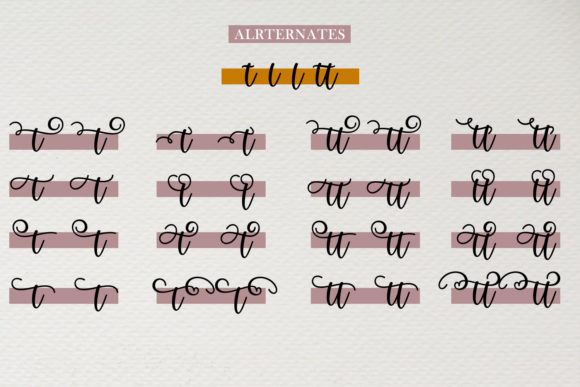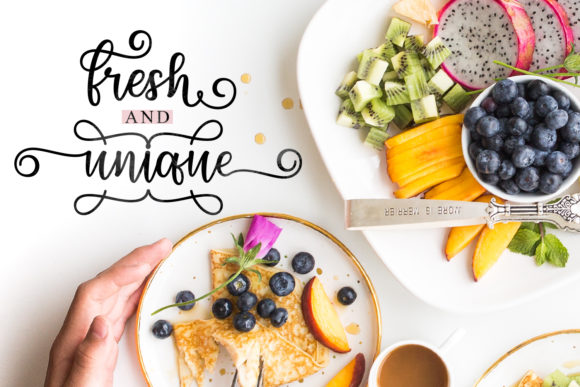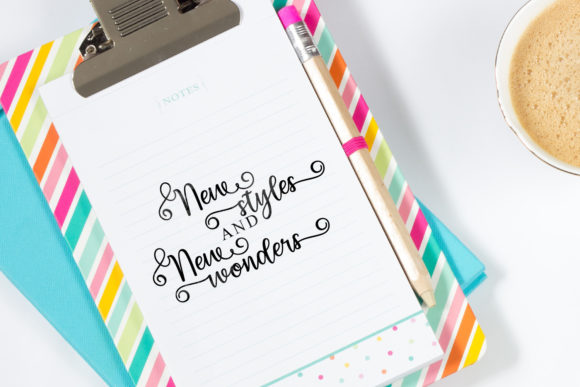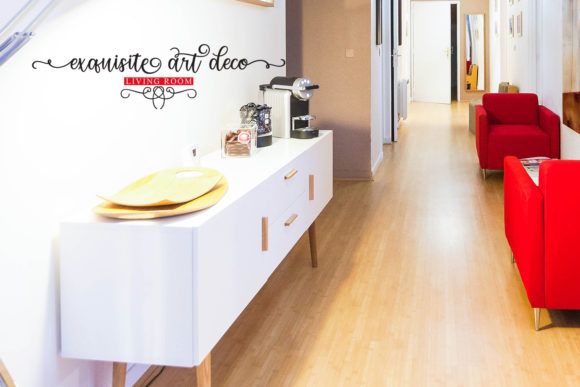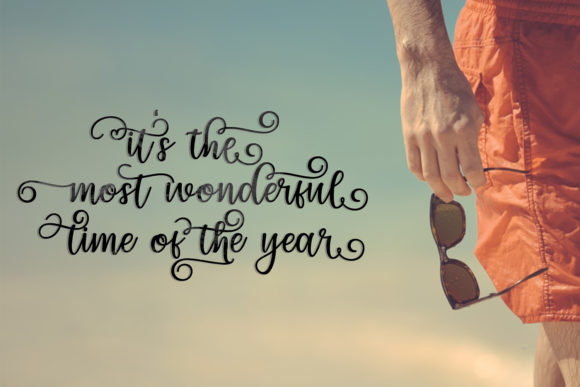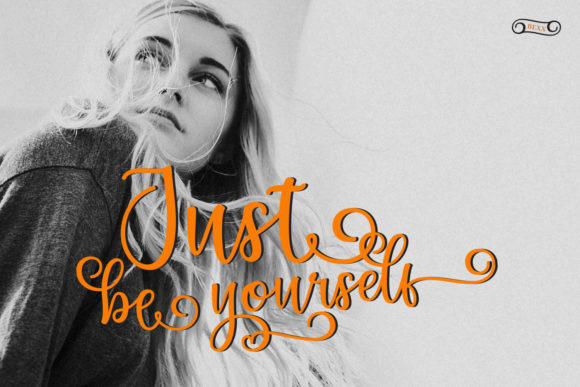
Introduction to Migdale Font
Have you ever stumbled upon the perfect font that makes your design project feel like a masterpiece? For designers, finding that one special font can be a game-changer. It’s like discovering a hidden treasure that elevates your entire creative project to the next level.
One such treasure is the Migdale Font – a playful script font that’s sure to add a touch of whimsy to any design. With its swirly characters and varying baseline, Migdale Font is a high-quality design resource that’s perfect for adding a personal touch to your projects.
Whether you’re working on a creative project that requires a free download or simply looking for a unique design element, the Migdale Font is an excellent choice. Its transparent background and beautiful flourishes make it an ideal addition to any design. In this article, we’ll delve into the world of Migdale Font and explore why it’s a valuable resource for designers like you.
Key Features of Migdale Font
- High-quality design resource ideal for creative projects, including logos, branding, and marketing materials.
- Features a unique, elegant design style that can add a touch of sophistication to any project.
Honest Review: Migdale Font
I recently had the chance to work with the Migdale Font, and I must say it’s been a great addition to my design resource library. This high-quality font is perfect for any creative project that requires a unique touch.
- Unique and creative design that sets it apart from other fonts
One thing to note is that the Migdale Font may not be suitable for projects that require a more traditional or formal font style. Additionally, some users may find the font’s uniqueness to be a drawback if they’re looking for something more neutral.
Overall, I’m impressed with the Migdale Font and would definitely recommend it to designers looking for a high-quality, creative font for their next project.
Migdale Font
The Migdale Font is a high-quality design resource perfect for creative projects. Its unique style and versatility make it an ideal choice for designers looking to add a touch of elegance to their work.
Using Migdale Font in Popular Design Tools
Tips for Getting the Most Out of Migdale Font
Experiment with different font sizes and styles to achieve the desired effect. Also, pair the Migdale Font with other high-quality design resources to create a cohesive look.
The Migdale Font is perfect for:
- Creating invitations and event graphics
- Designing logos and branding materials
- Adding a touch of elegance to presentations and reports
Alternatives to Migdale Font
Alex Brush is a high-quality, elegant script font ideal for creative projects that require a touch of sophistication. It’s perfect for designing wedding invitations, branding materials, or any other project where a beautiful, handwritten feel is desired. With its transparent background, Alex Brush is a versatile design resource that can be used in various contexts. When to use: weddings, branding, invitations. Comparison to Migdale Font: While Migdale Font has a more modern and edgy feel, Alex Brush is more traditional and elegant.
Carolyna Pro is a modern, high-quality sans-serif font designed for creative projects that require a clean and minimalist aesthetic. It’s perfect for designing logos, brochures, or any other project where a simple, yet effective design is desired. With its transparent background, Carolyna Pro is a valuable design resource that can be used in various contexts. When to use: logos, brochures, packaging. Comparison to Migdale Font: While Migdale Font has a more playful and cursive feel, Carolyna Pro is more modern and straightforward.
Great Vibes is a beautiful, high-quality script font ideal for creative projects that require a fun and energetic feel. It’s perfect for designing posters, social media graphics, or any other project where a lively and approachable vibe is desired. With its transparent background, Great Vibes is a versatile design resource that can be used in various contexts. When to use: posters, social media, advertising. Comparison to Migdale Font: While Migdale Font has a more minimalist and modern feel, Great Vibes is more playful and expressive.